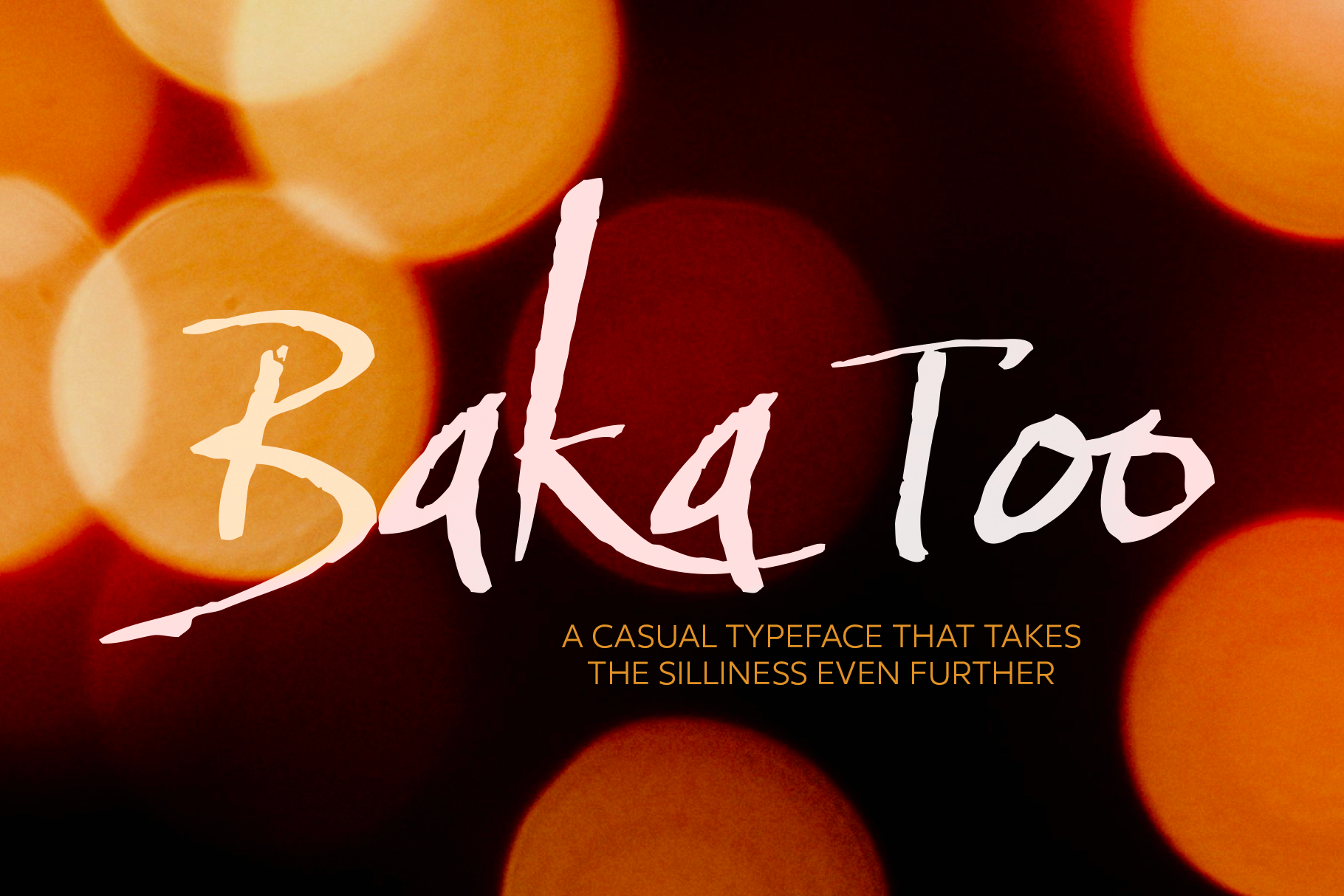
Baka Too Script Typeface
Baka Too further explores relaxed script writing using a fountain pen with an angled nib on Crane's paper.
As part of Neil Summerour & Positype's Relaxed Script Font Series, this typeface features a number of OpenType features that includes a number of Stylistic, Swash, and even Titling alternates. These typefaces are expertly craft and perfect for any use where you are wanting a personal or casual touch, including: invitations, weddings, social media, packaging, branding, stationery, and print advertising.